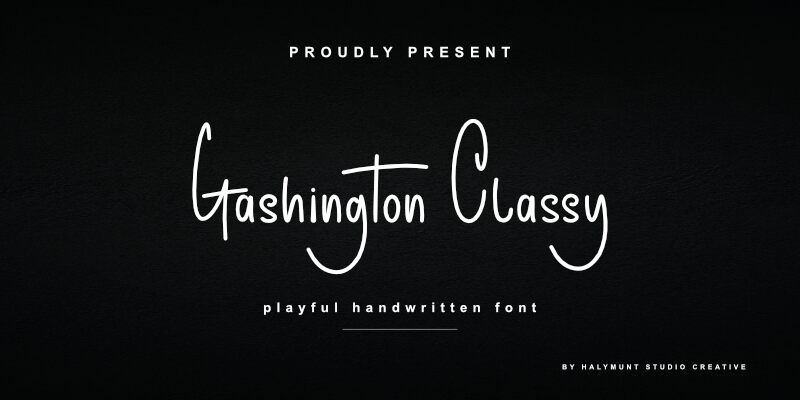
Gashington Classy
Looking for a font that exudes elegance and sophistication? Look no further than Gashington Classy, the latest creation from Halymunt Studio. With its extra-light weight and condensed width, this handwritten font is perfect for adding a touch of refinement to your digital projects. Whether you're designing invitations, creating logos, or crafting social media posts, Gashington Classy is the ideal choice for any project that demands a stylish yet subtle touch. Try it out today and see how it elevates your designs to new heights of chic sophistication!